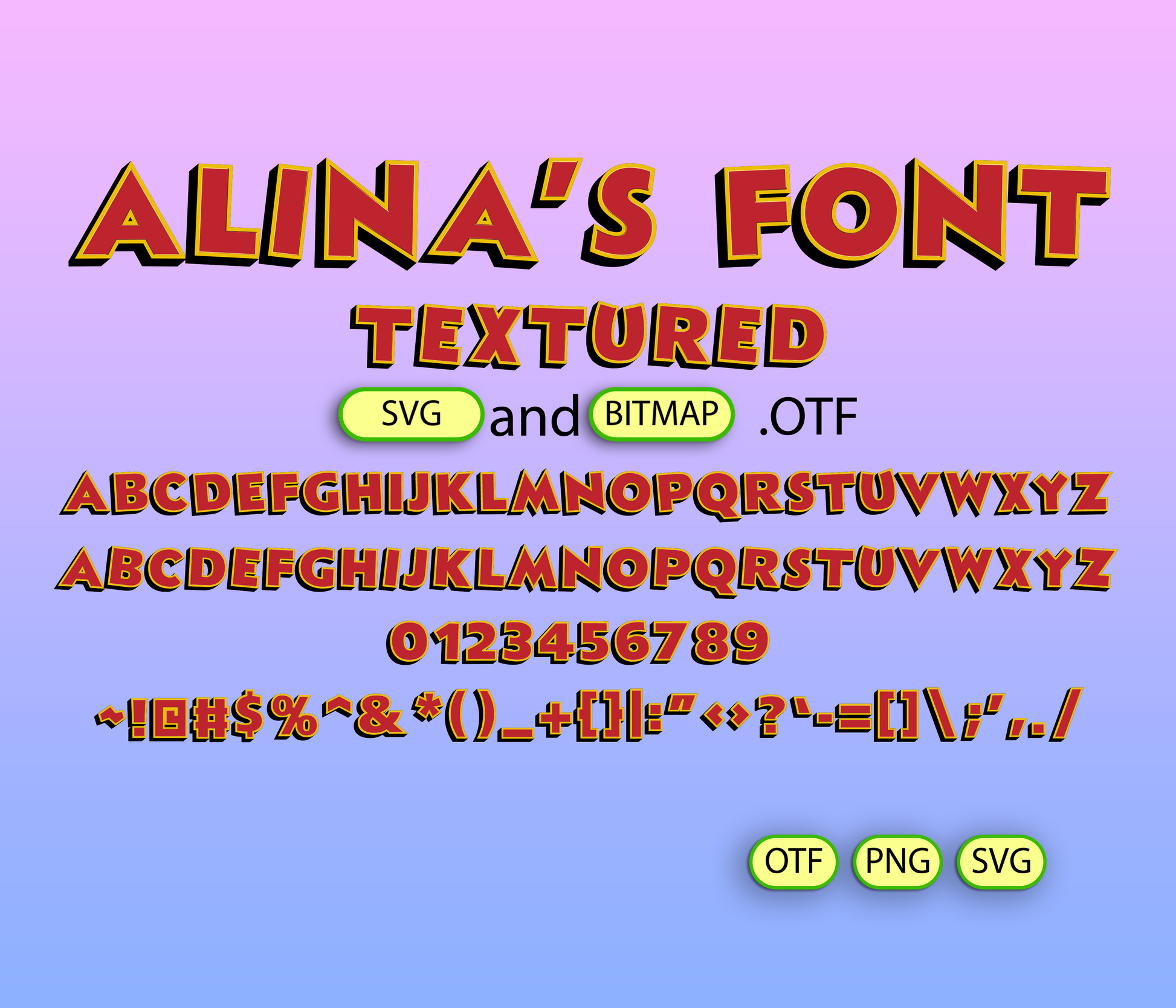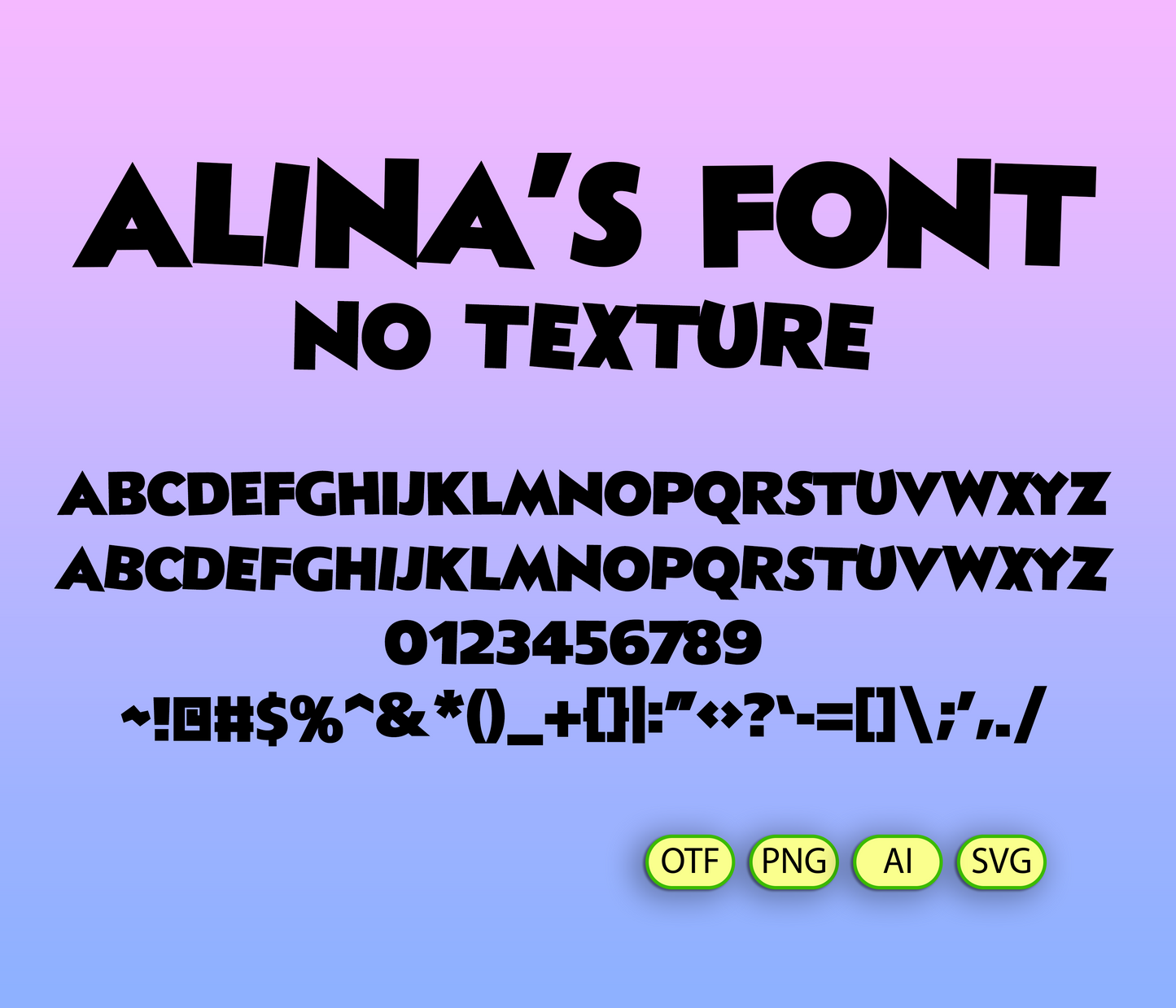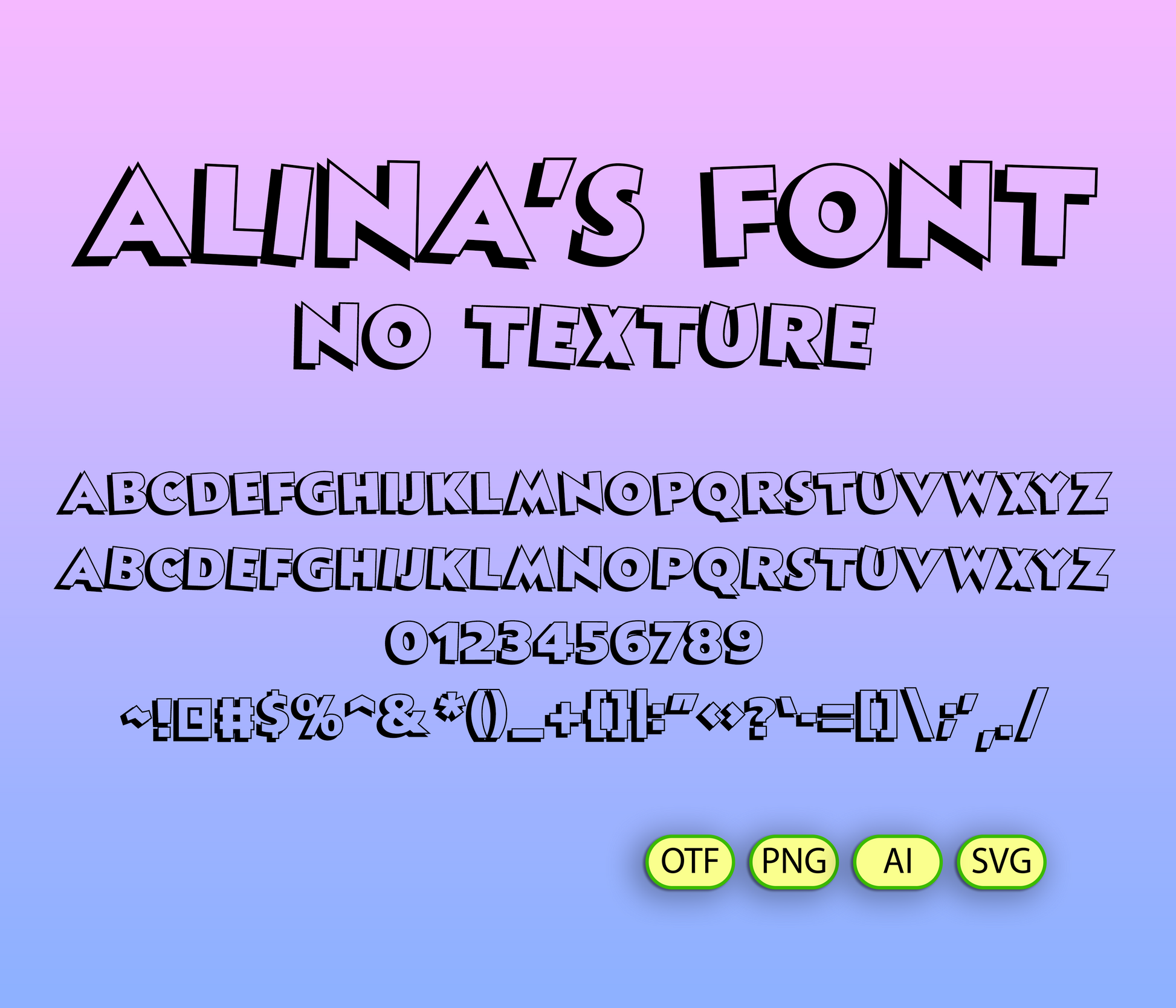
Playful Mouse Font Textured
Playful Mouse Colorplay Font: A Textured Digital Typeface
Unveil a playground of colors with Playful Mouse Colorplay Font, a textured digital typeface drawing inspiration from an iconic animated character. Each character leaps with joy and color, embodying the playful spirit and timeless charm that this beloved mouse brings into our lives. This font is the perfect companion for crafting enchanting birthday invitations, lively cake toppers, or any project aiming to capture the magic of classic animation.
So, let your creativity waltz to the rhythm of Playful Mouse Colorplay Font, and paint your projects with a palette of joy that's as boundless as the enchanting world of beloved cartoon characters. Whether you're creating party decorations, designing cheerful apparel, or crafting memorable gifts, this font brings a touch of animated magic to every project.